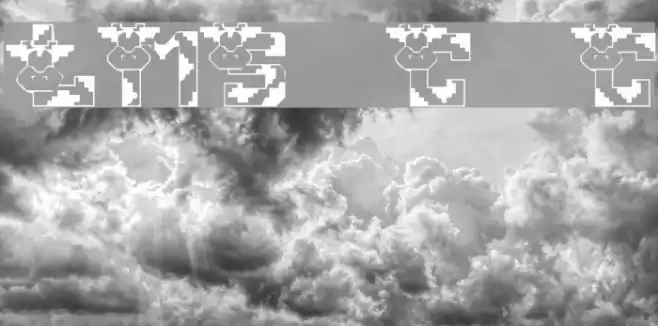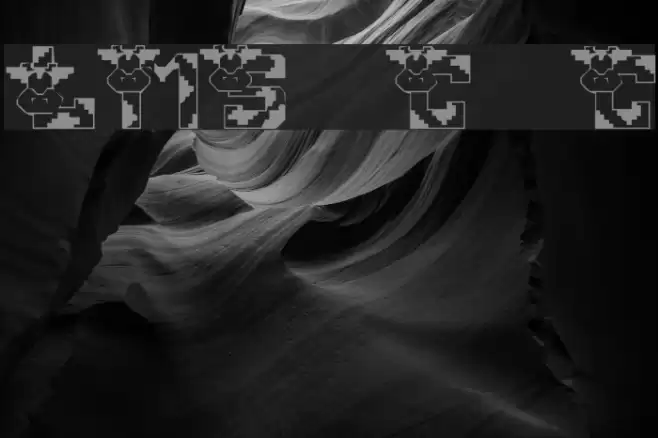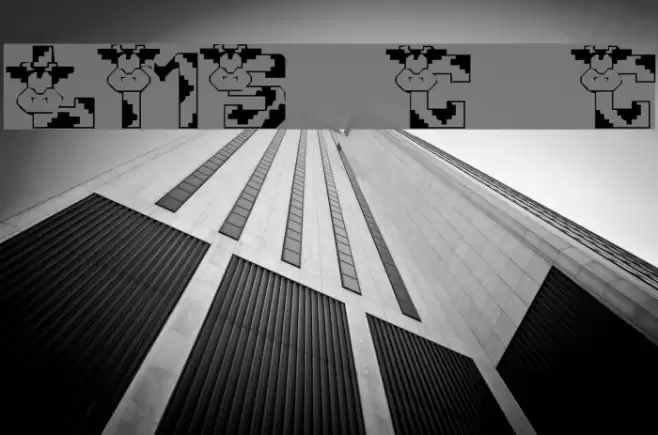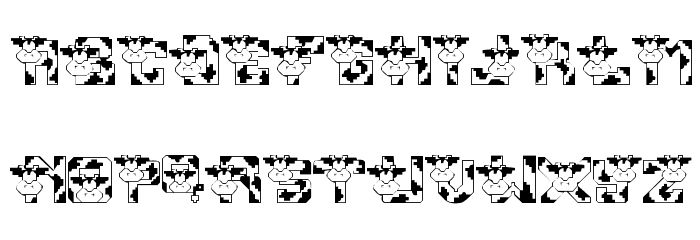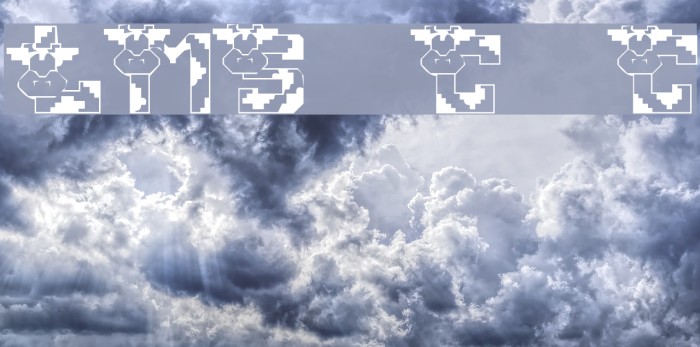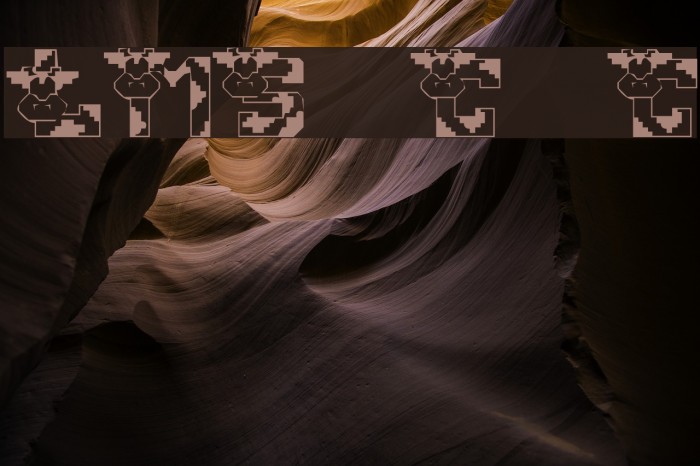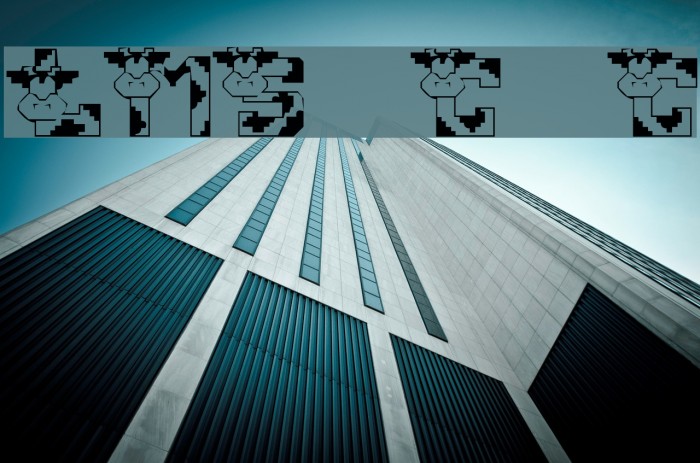
LMS Conrad's Cows Font
LMS Conrad's Cows Description
This playful and whimsical font features characters that are creatively integrated with cow illustrations. Each letter is designed with a cow pattern, incorporating black and white spots, and some letters even include cow heads or tails as part of the design. The font has a cartoonish and humorous style, making it ideal for projects that require a fun and lighthearted touch. The characters are bold and distinct, ensuring readability despite the intricate designs. This font is perfect for children's materials, farm-themed events, or any project that aims to convey a sense of fun and creativity.
A playful, cow-themed font with cartoonish, bold characters from Kids fonts.
- Proposed Projects: Ideal for children's books, farm-themed events, playful posters, and novelty items.
- Overall Style: Whimsical
- Use Case: Headlines, Posters, Children's materials